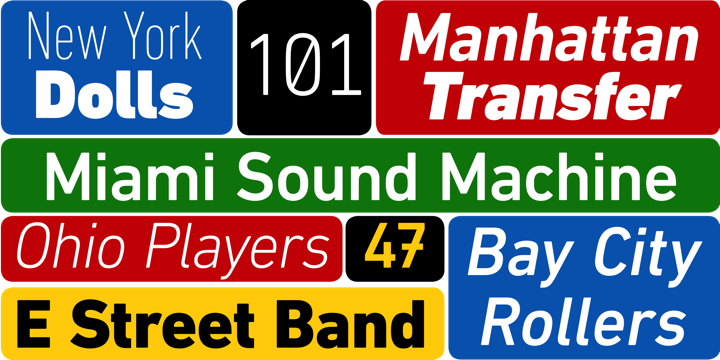
by Linotype / Monotype Imaging
The name DIN refers to the Deutsches Institut für Normung (in English, the German Institute for Standardization). The typeface began life as the DIN Institute’s standard no. DIN 1451, published in 1931. It contained several models of standard alphabets for mechanically engraved lettering, hand-lettering, lettering stencils and printing types. These were to be used in the areas of signage, traffic signs, wayfinding, lettering on technical drawings and technical documentation. Rooted in earlier designs for Germany’s railway companies, the alphabets were based on geometric shapes in order to be easily reproducible using compass and ruler.
In post-1945 West Germany, the DIN alphabets were widely used, for instance on most road signs. They became available as fonts that were appreciated by designers for their industrial, somewhat quirky and “non-typographic†look and feel. From the 1990s onwards, more refined versions became available for use in book and magazine typography. DIN Next is a typographically corrected and expanded version of this quintessential 20th-century design.
Designer: Akira Kobayashi